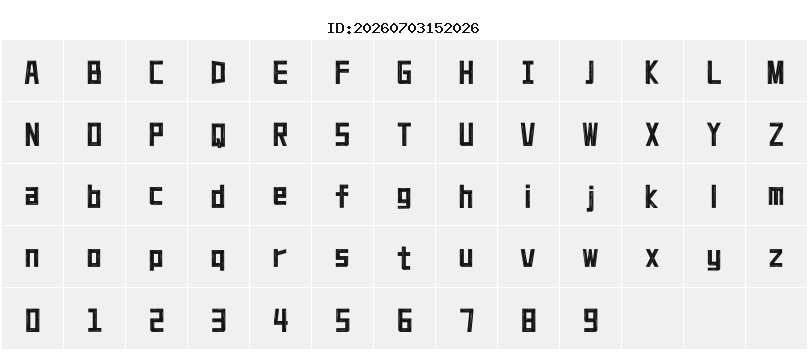
• Font Name: 323-上首青竹体
• Full Font Name: 323-上首青竹体
About 323-上首青竹体.ttf
323-上首青竹体.ttf is a modern, elegant sans-serif font designed for ultimate readability and visual harmony. Perfect for branding, headlines, web design, and print materials.